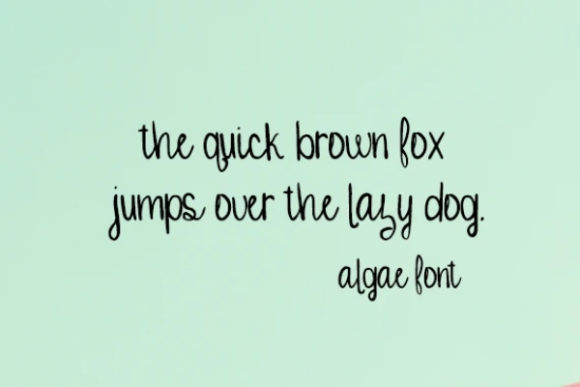
Get Ready to Fall in Love with the Perfect Hand-Lettered Font
Remember that moment when you stumbled upon the perfect font for your design project? The one that made your vision come to life in an instant? That’s exactly what happened to many designers when they discovered the Algae Font. This charming hand-lettered font is a treasure trove of creative possibilities, waiting to be unleashed on your next project.
With its soft, sweet, and authentic feel, Algae Font is perfect for creating stunning wedding invitations, beautiful stationery art, and eye-catching social media posts. What sets it apart is its wealth of special features, including alternate glyphs, ligatures, and PUA encoding, making it a valuable asset for designers looking to add a personal touch to their work.
Algae Font Key Features
- Unique Characteristics: Algae Font features a distinctive, hand-drawn style with organic and flowing lines, making it ideal for use in creative and artistic applications.
- Kerning and Ligatures: Algae Font includes advanced kerning and ligature pairs, ensuring smooth and even spacing between characters, even in complex text settings.
Algae Font Review
First off, I want to say that I’m impressed with the unique vibe of Algae Font. It’s a display font that’s designed to evoke a sense of aquatic life, and it definitely delivers. ✨ The font has a soft, organic feel to it, and the irregular shapes of the letters add a touch of whimsy.
One of the things that really works well in Algae Font is its versatility. ✨ It’s available in a range of weights, from light to bold, and it can be used for a variety of applications, from logos to signage to digital displays. The font is also highly legible, even at small sizes.
However, there are a few limitations to consider. ⚠️ For one thing, the font may not be suitable for all types of text. Its irregular shapes can make it difficult to read in certain contexts, and it may not be the best choice for body text. Additionally, the font’s organic feel may not be to everyone’s taste.
Overall, I think Algae Font is a great choice for designers who are looking for a unique and eye-catching display font. With its versatility and high legibility, it’s a great option for a wide range of applications.
- Unique and eye-catching design
- Highly legible, even at small sizes
- Available in a range of weights
- Not suitable for all types of text
- May not be to everyone’s taste
Algae Font Practical Application Guide
Tips for Getting the Most Out of Algae Font
Use Algae Font for titles and headings to add a touch of elegance to your designs. Experiment with different font sizes and styles to create visual interest.
Algae Font is ideal for:
- Artistic and creative projects